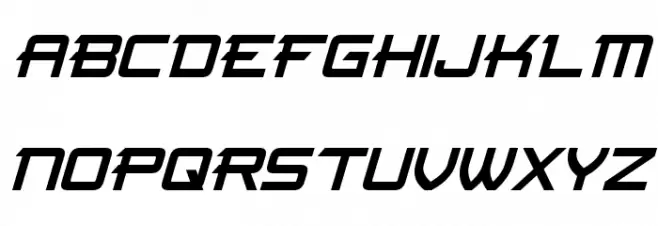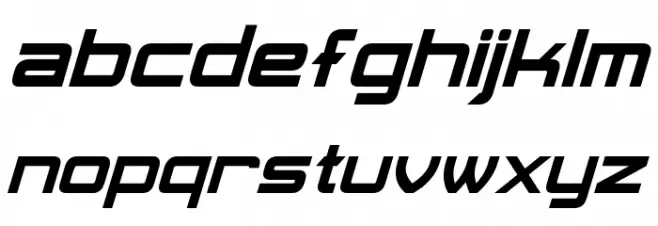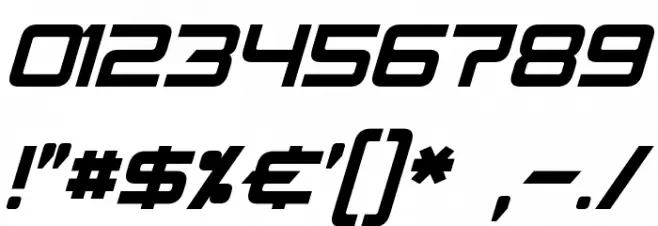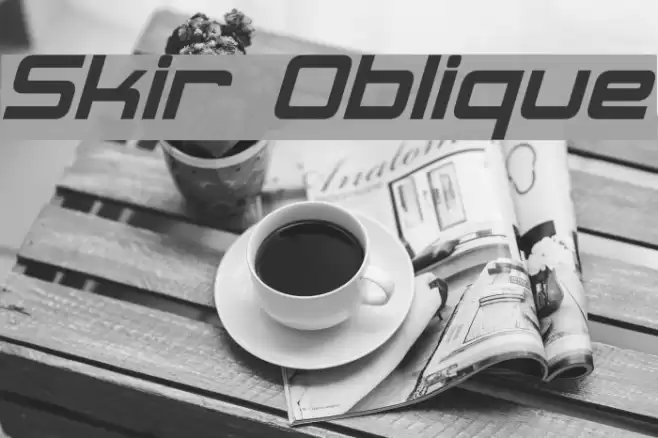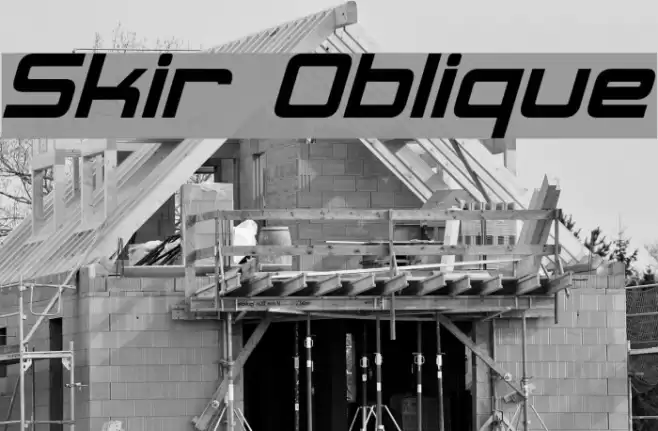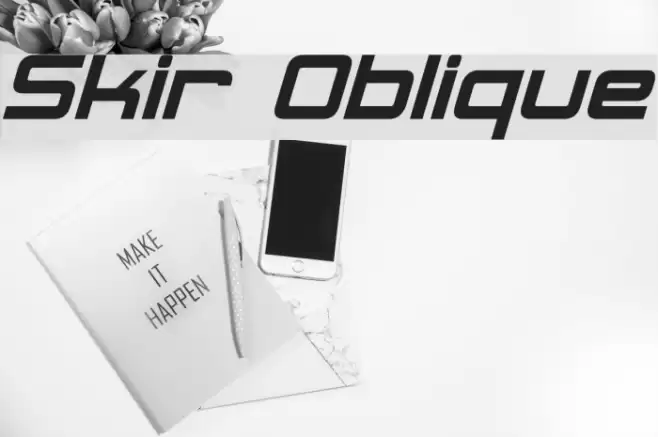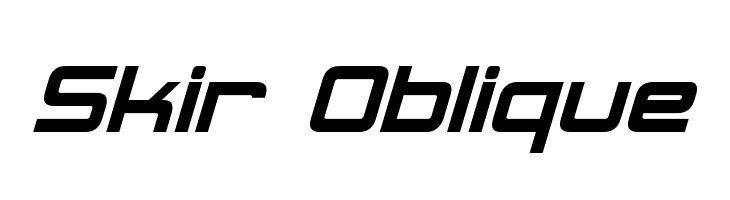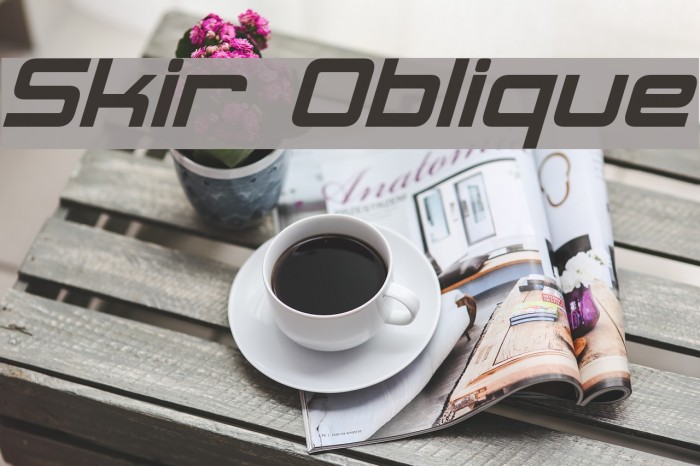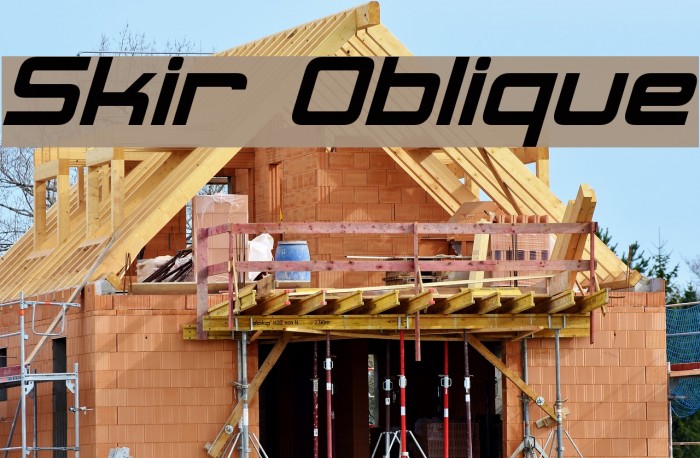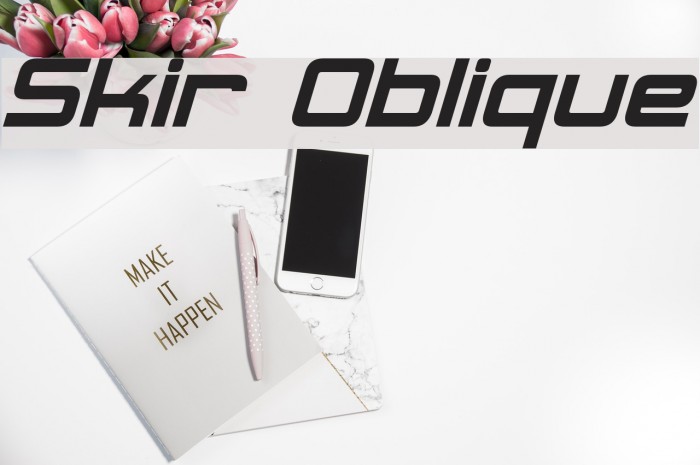
Skir Oblique
This font features a dynamic and modern oblique style, characterized by its sharp angles and sleek lines. The uppercase letters are bold and assertive, while the lowercase letters maintain a consistent slant, adding a sense of motion and speed. The numerals are distinct and easily readable, complementing the overall futuristic aesthetic. Special characters are designed with the same angular precision, ensuring uniformity across all glyphs. This font is ideal for projects that require a contemporary and edgy look.
A modern oblique font with sharp angles and a sleek, dynamic style.
- Proposed Projects: Ideal for branding, sports team logos, tech startups, and futuristic design projects.
- Use Case: Headlines, Logos, Branding